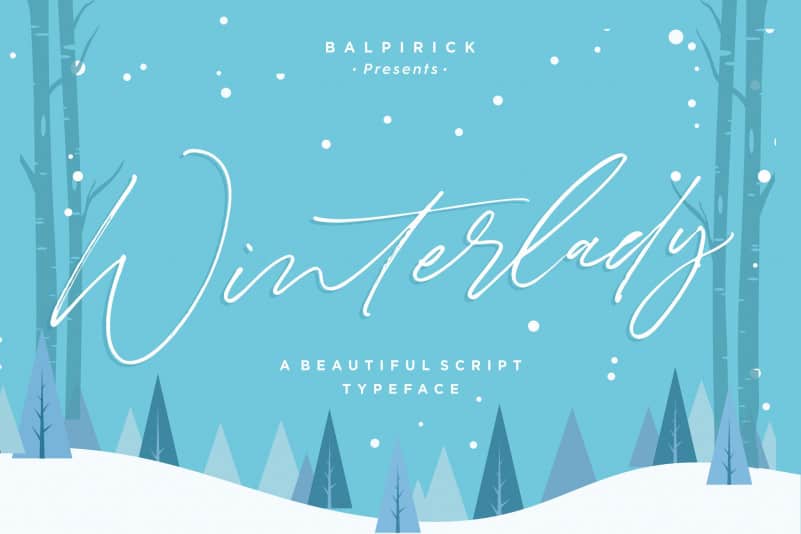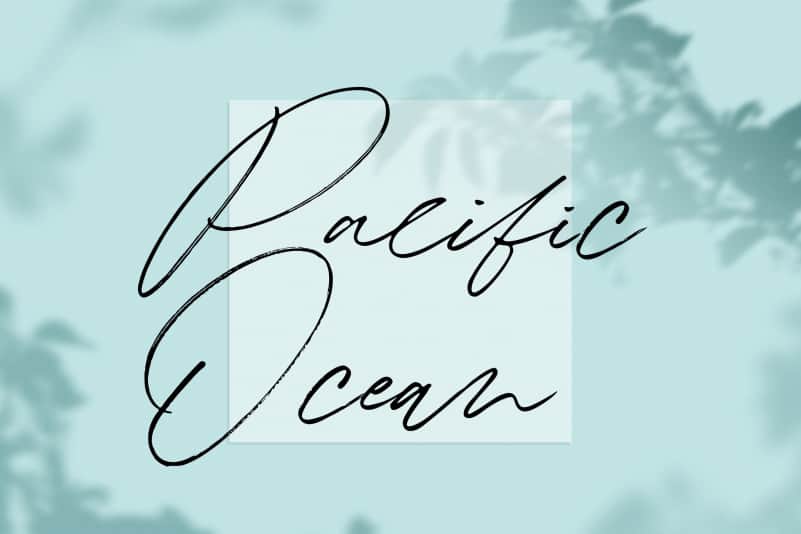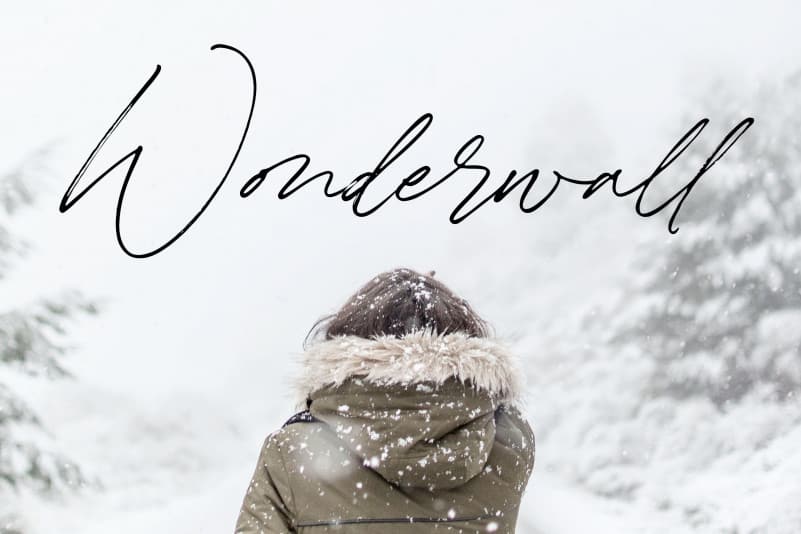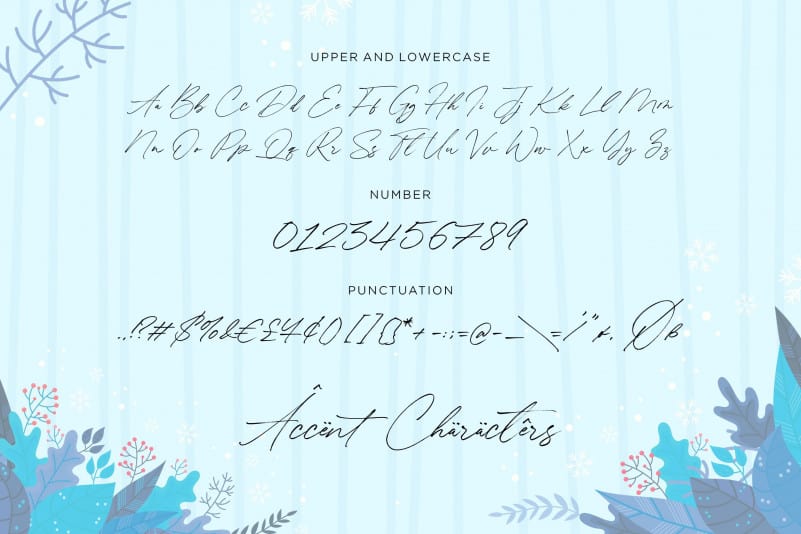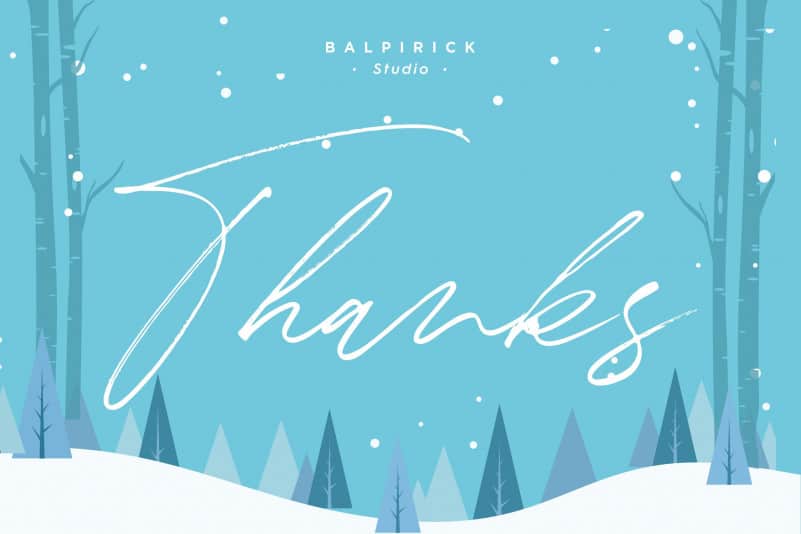
Proudly Present, Winterlady Beautiful Script Font.
Winterlady is a Beautiful Script Font.
Winterlady is perfect for product packaging, branding project, business card, megazine, social media, wedding, or just used to express words above the background.
Winterlady also multilingual support.